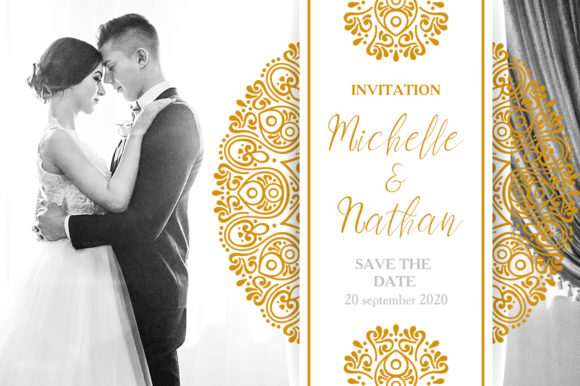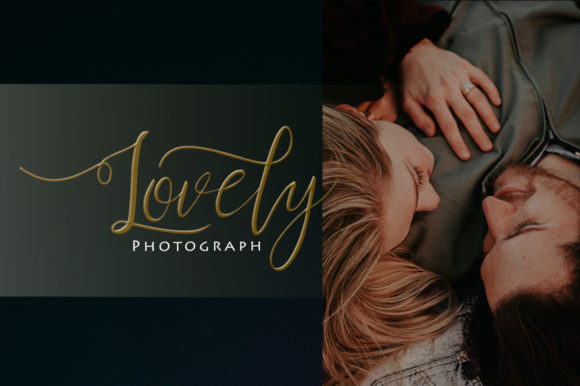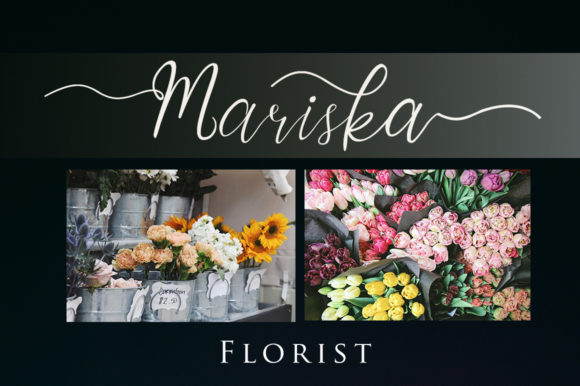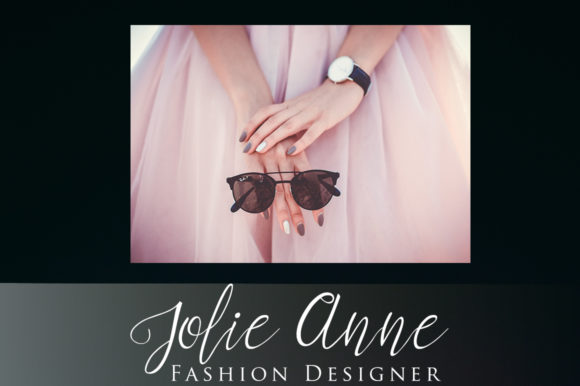
Introduction to Rathrine Font
Have you ever been working on a creative project, pouring your heart and soul into every detail, only to feel like something’s missing that extra oomph? You’ve got your colors, your layout, and your content, but you just can’t seem to nail down that perfect touch. That’s where the Rathrine Font comes in – a stunning script font that adds an air of elegance and sophistication to any design.
As a designer, you’re always on the lookout for that one special resource that makes your work stand out. And trust us, the Rathrine Font is it. With its feminine feel and high-quality design, it’s perfect for invitations, branding, logos, labels, and much more. Plus, it’s available for free download, making it an incredibly valuable design resource to have in your toolkit.
Whether you’re working on a wedding craft, a social media post, or an advertisement, the Rathrine Font is sure to bring a touch of class and sophistication to your design. And with its transparent background option, you can use it on a variety of backgrounds, from simple to complex, to create a truly unique and eye-catching look.
Key Features of Rathrine Font
- Unique characteristics: Distinctive, elegant, and modern design style, perfect for adding a touch of sophistication to any project.
Honest Review: Rathrine Font
I recently stumbled upon the Rathrine Font and I must say, it’s been a game-changer for my design projects. As a designer, I’m always on the lookout for high-quality design resources that can elevate my work, and this font definitely delivers. One of the standout features of the Rathrine Font is its high quality and creative design, making it perfect for any creative project.
- ✨ High-quality design with a unique aesthetic
- ✨ Versatile font suitable for digital and print designs
- ✨ Transparent background for easy use
One limitation I’ve noticed is that the font might not be suitable for extremely formal or professional designs, as its creative design may not fit with more conservative styles. However, for most design projects, the Rathrine Font is a great choice.
Overall, I’m thoroughly impressed with the Rathrine Font and would highly recommend it to designers looking for a unique and high-quality font for their creative projects.
Using Rathrine Font in Creative Projects
Tips for Getting the Most Out of Rathrine Font
To get the most out of Rathrine Font, experiment with different font sizes, colors, and combinations. Use it in conjunction with other design elements, such as images and graphics, to create a visually appealing design.
Rathrine Font is ideal for designing business cards, brochures, posters, and social media graphics. It’s also great for creating a consistent brand identity across all marketing materials.